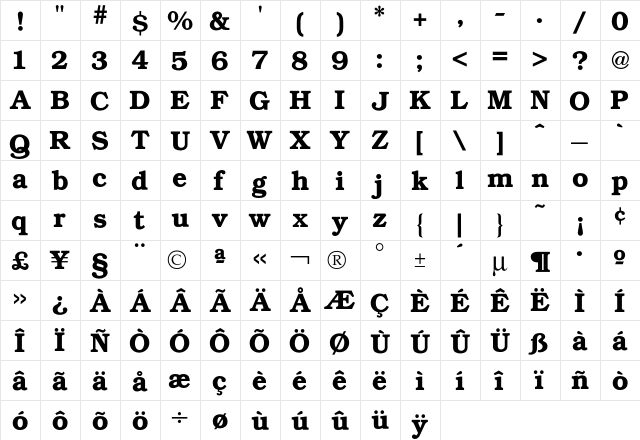
Bookman Demi Font Preview
Bookman Demi
Bookman Demi Font Details
| Style | Demi |
Design Context for Bookman Typeface
Bookman is a composed and adaptable typeface that performs quietly and consistently across a wide range of design contexts.
Pro Tip: Pair Bookman with a font of contrasting weight or personality to build a more expressive typographic hierarchy.